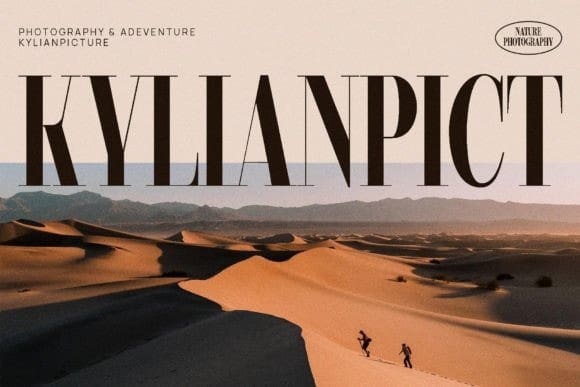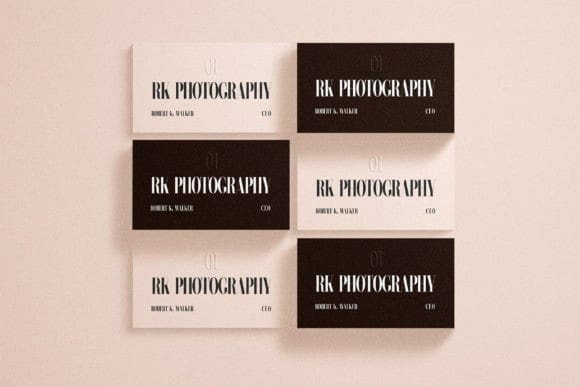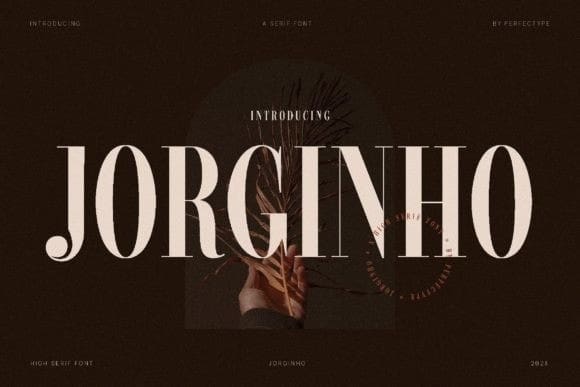
Jorginho Font
Jorginho Font by Perfectype 14,834 downloads
Jorginho Font
Jorginho Font – Elegant Serif Font inspired by the famous minimalist logo perfect for the purposes of designing templates, brochures, videos, advertising branding, logos, invitation, layout design, elegant crafting, beauty design and other